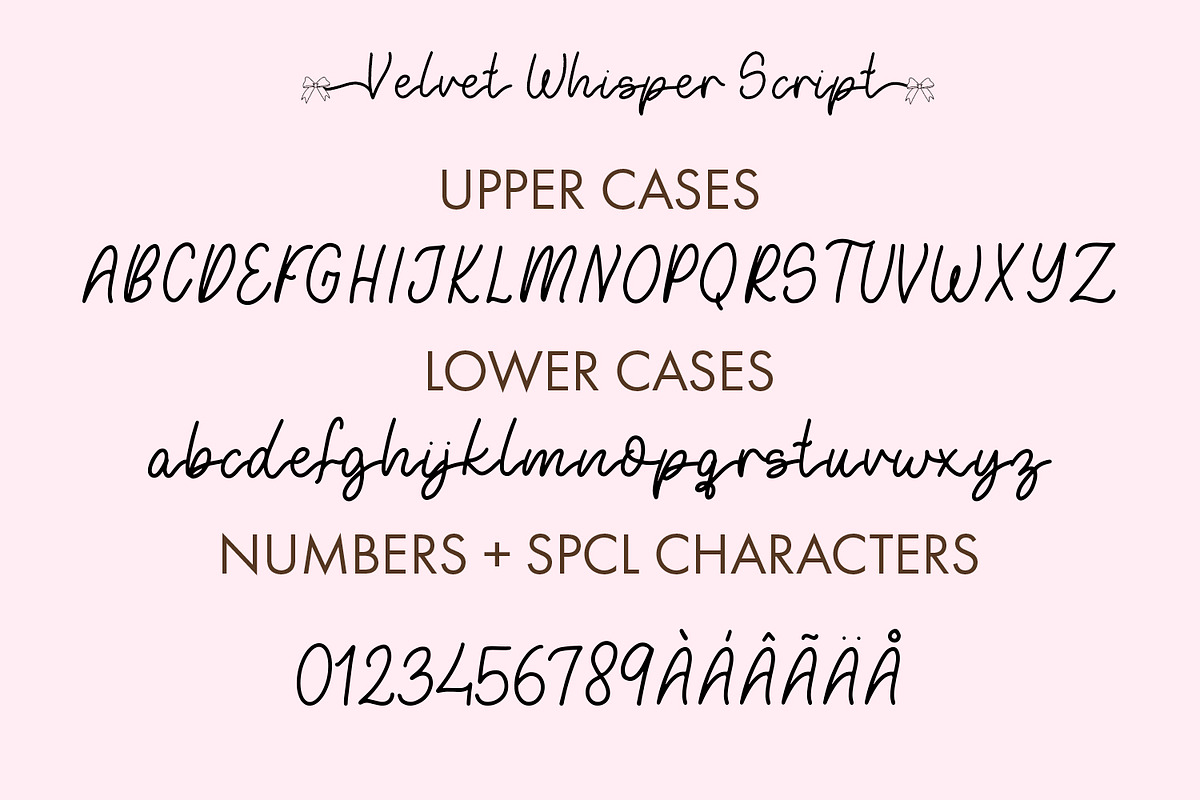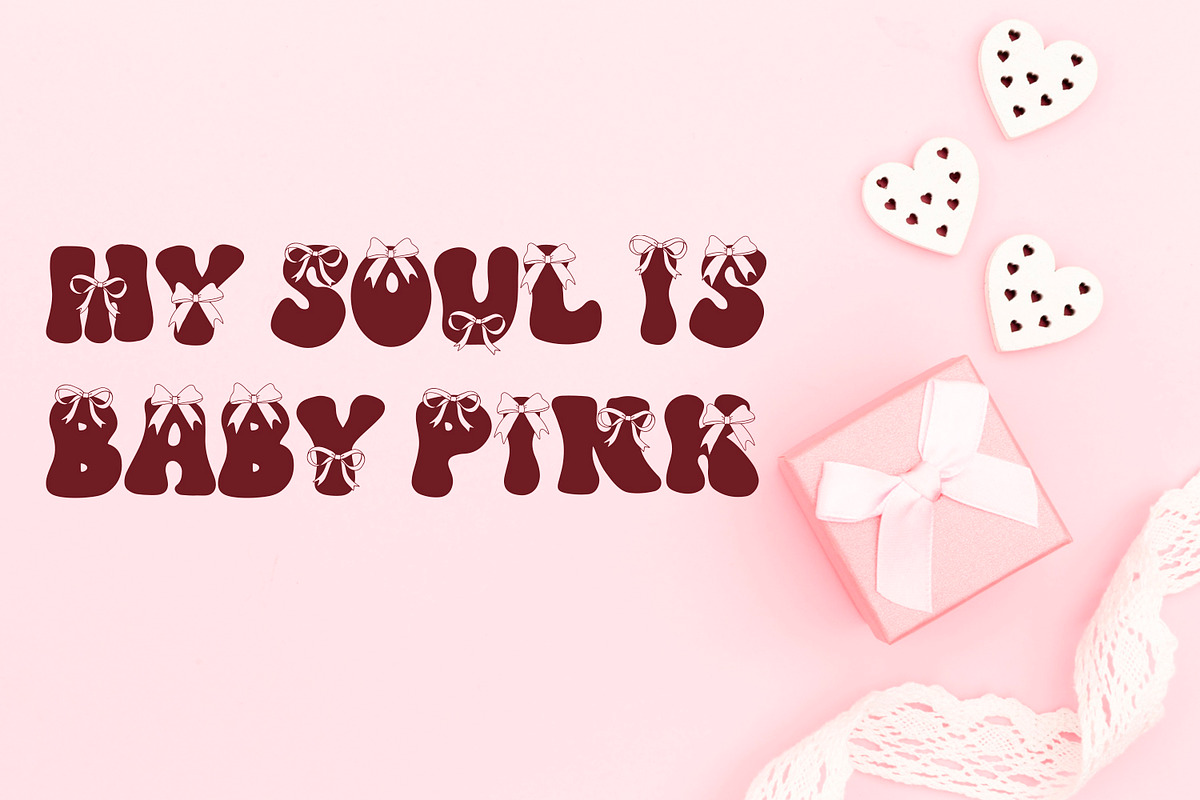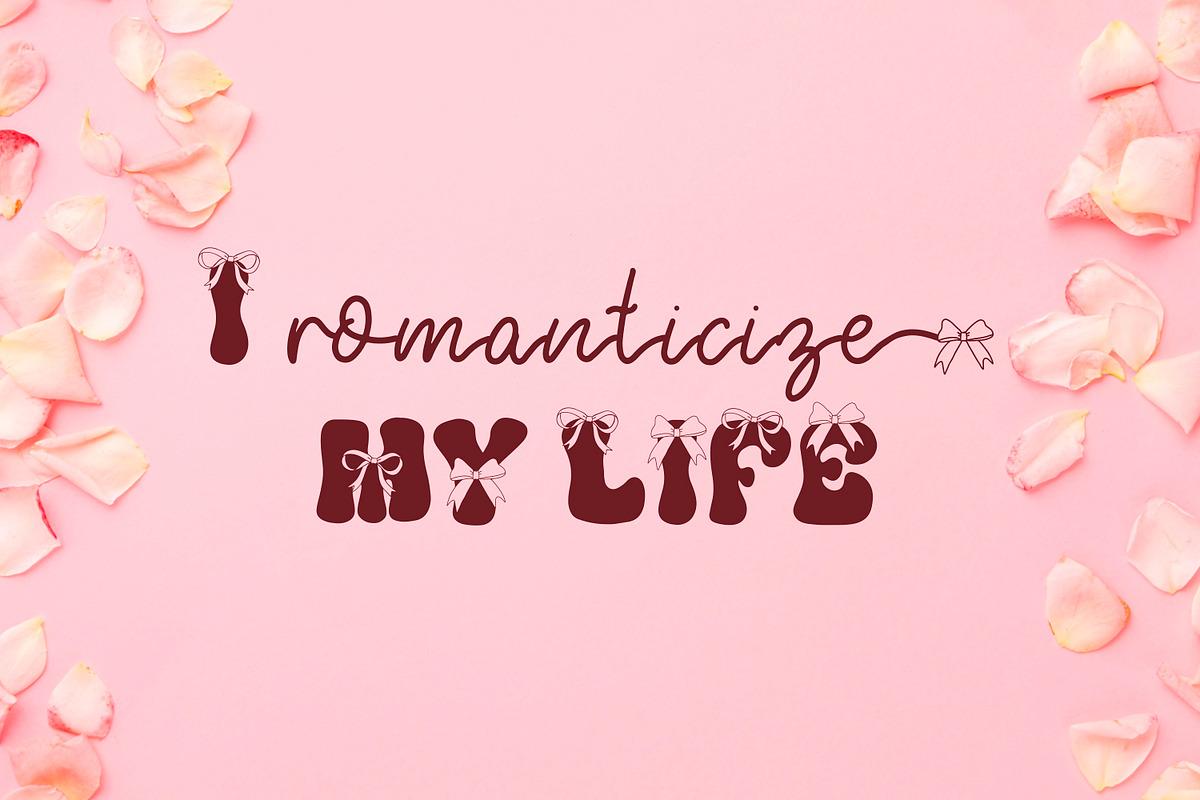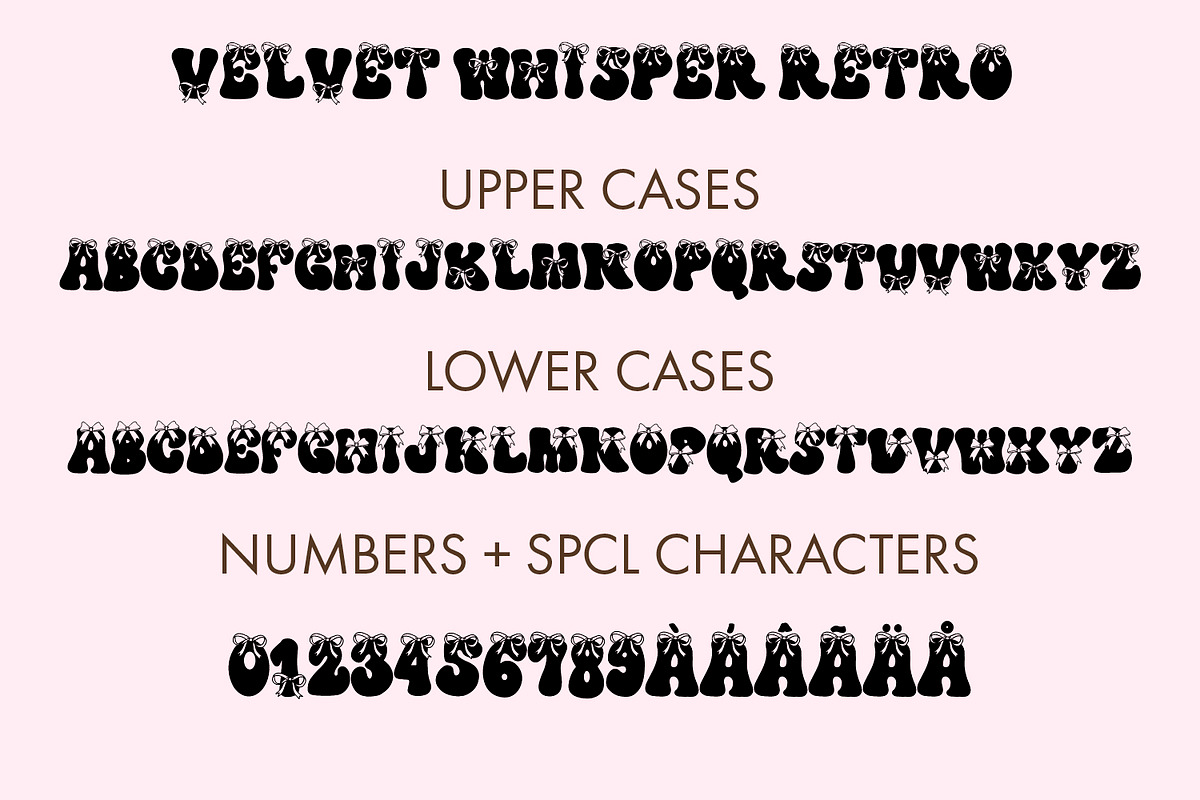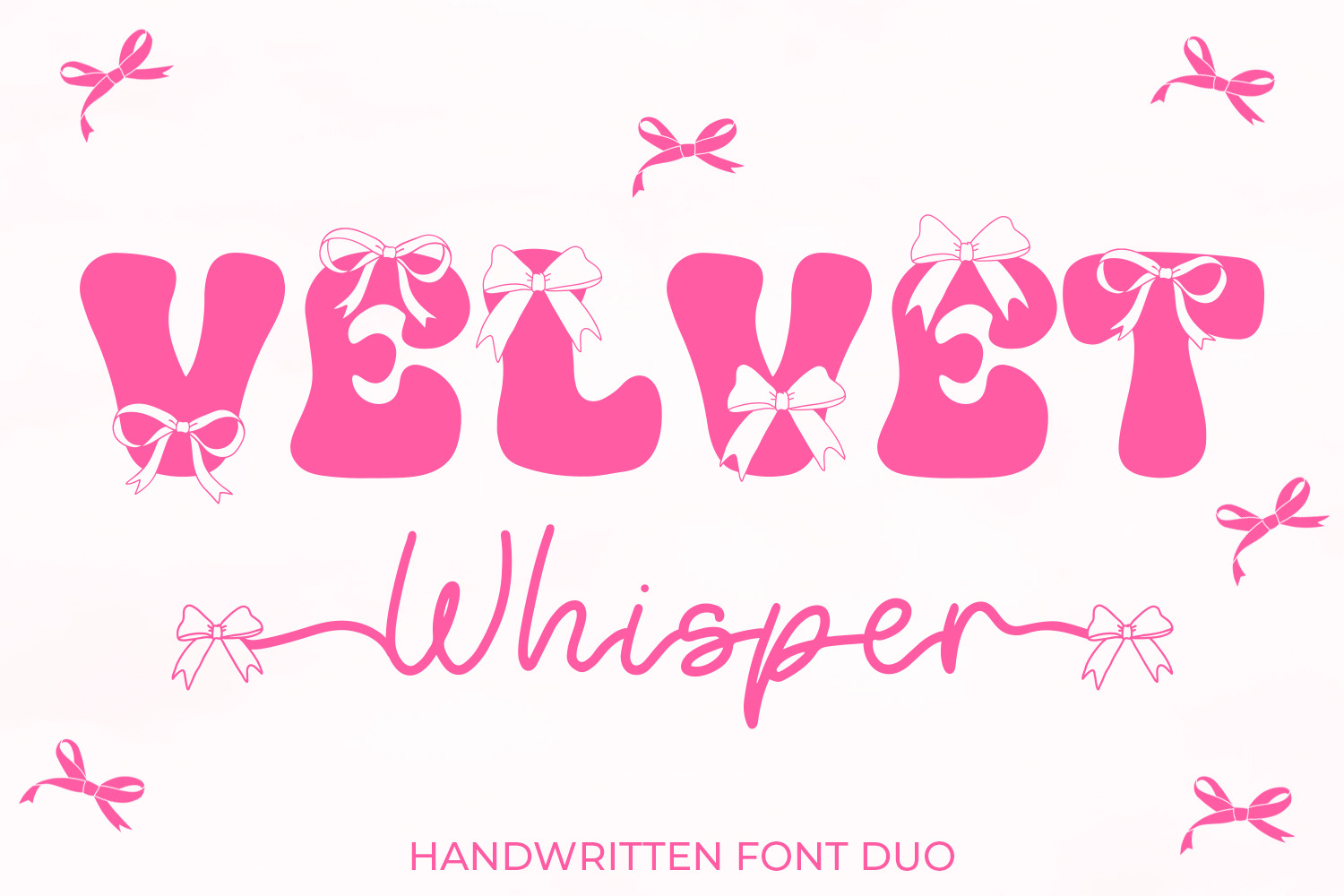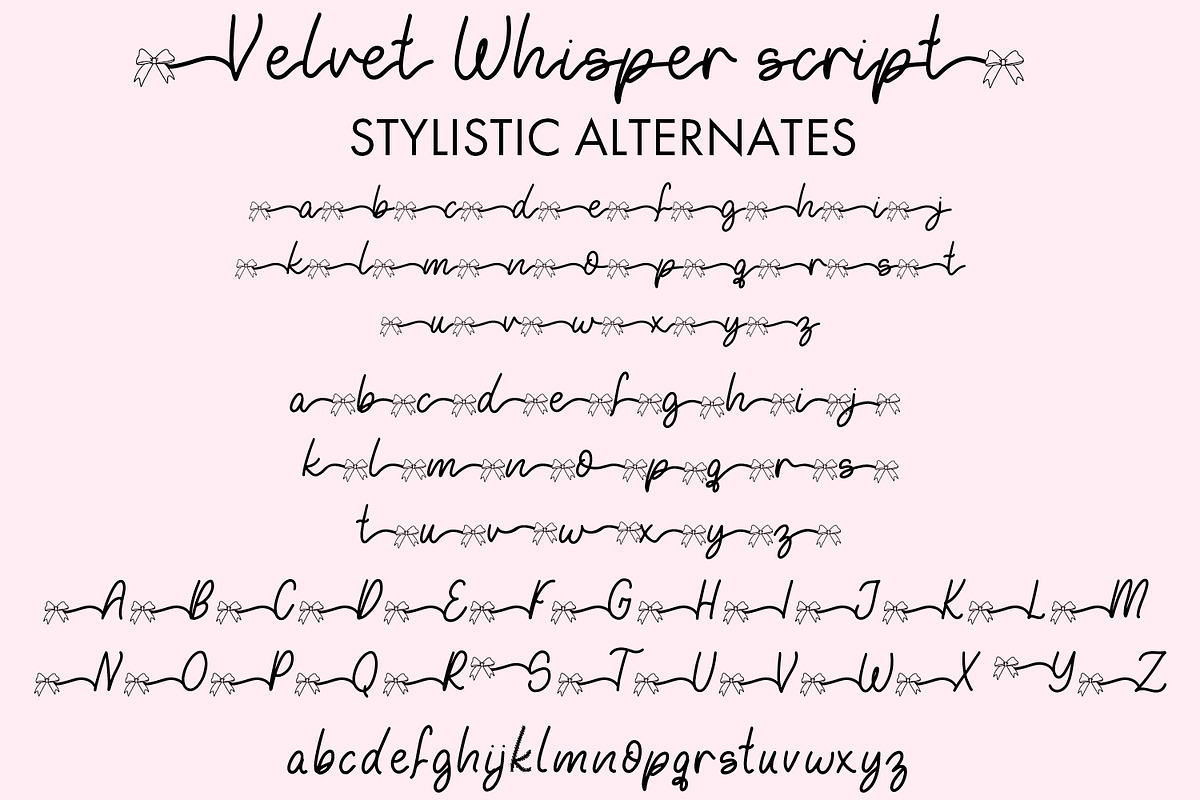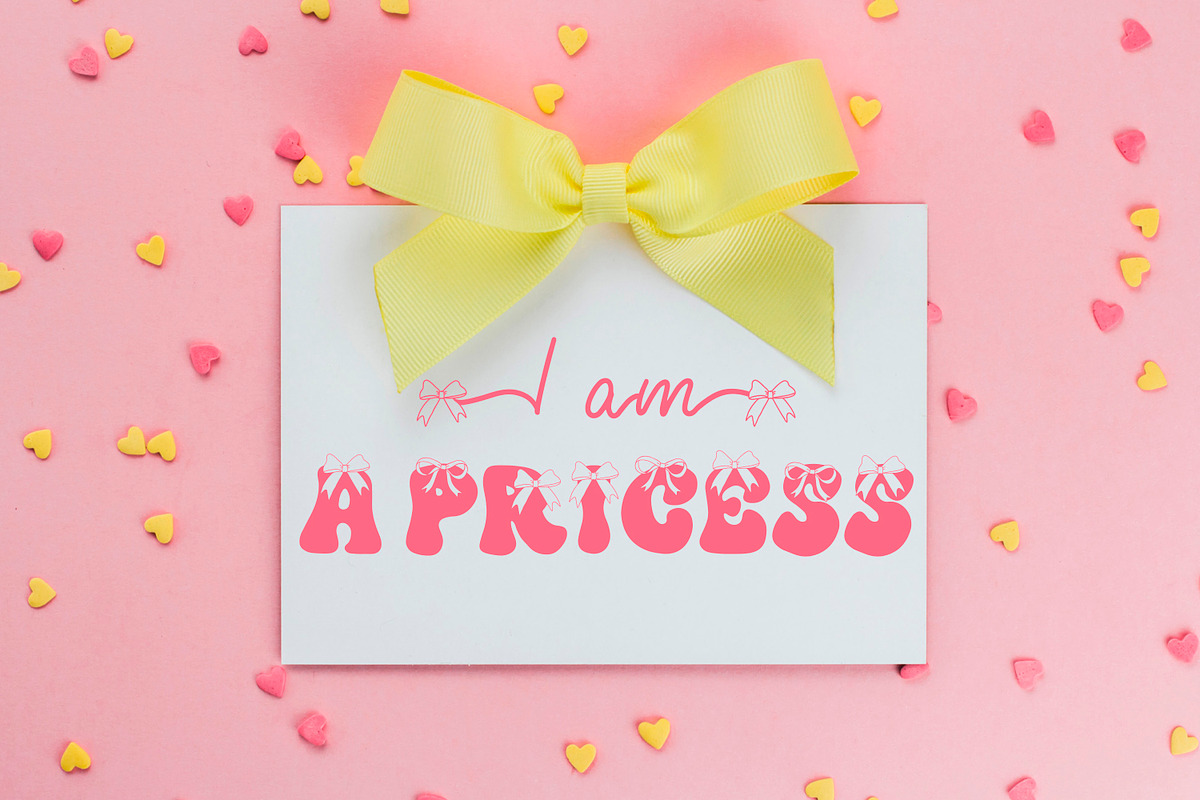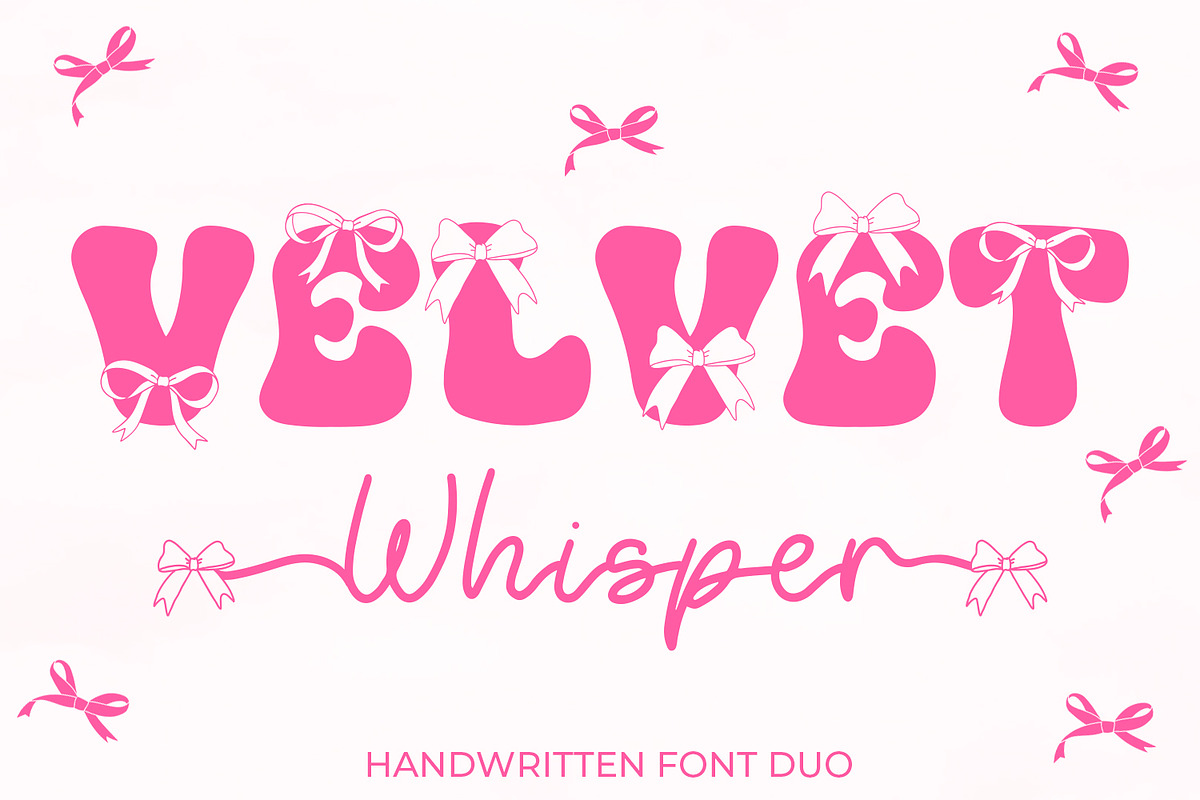
Velvet Whisper Font Duo
Elevate your designs to new heights of sophistication and charm with our exquisite font duo, "Velvet Whisper." This unique duo combines the allure of retro uppercase letters adorned with delicate coquette bows, and a script font featuring stylish alternates with bows for a touch of whimsical elegance.
Font Duo Highlights:
Retro Uppercase Font: Each letter exudes vintage flair, enhanced by the enchanting addition of coquette bows, bringing a sense of grace and femininity to your projects. Script Font with Stylistic Alternates: The script font offers versatility with stylistic alternates, where uppercase letters boast a charming bow at the beginning, and lowercase letters feature bows at either the beginning or end, allowing for endless customization options. Perfect Pairing: Ideal for invitations, branding, logos, and more, this font duo adds a touch of retro glam and coquette charm to any design.